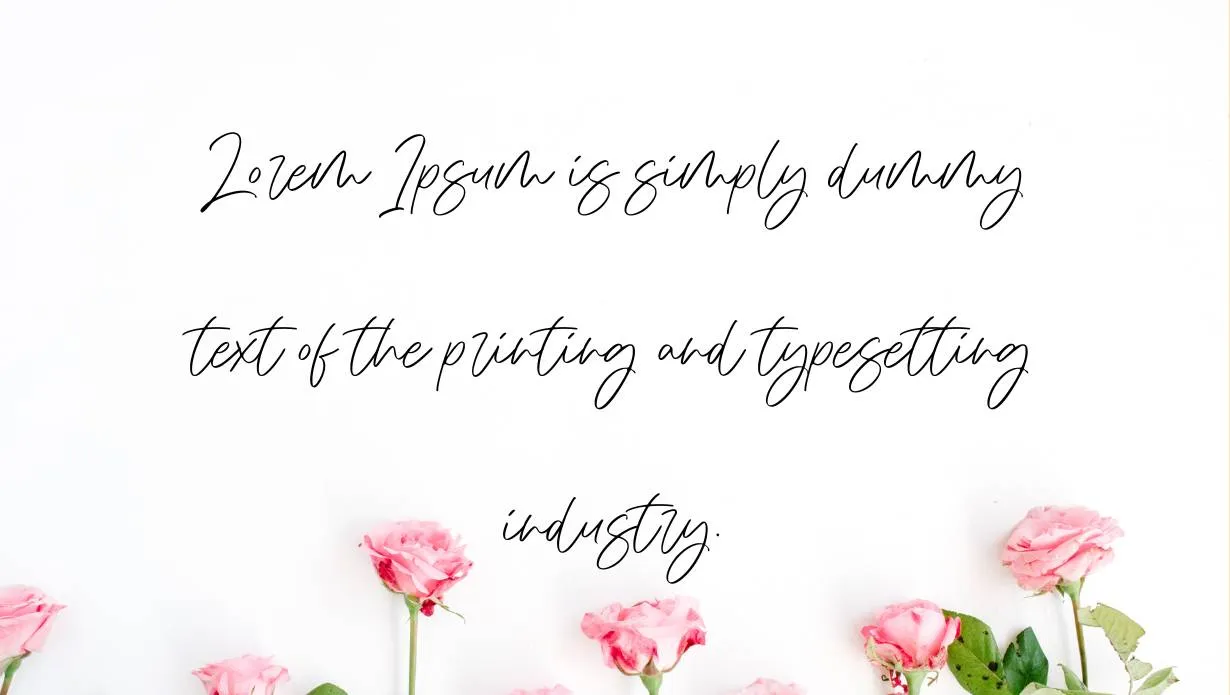
Hello! Bonjourno Font, created by AesthericaStudio, is a stylish font with the power to elevate your projects. Its classy upper and lower characters, as well as symbols, make it a perfect choice for creating new and captivating designs. If you want to add a touch of sophistication to your work, this font is definitely worth considering.
It is a fantastic script design. The font has the generator tool facility through which you can create your designs in the most attractive manner.
The typeface has cool and sleek characters that give your design a new and trendy look. This font style can make a good pair with polya font.